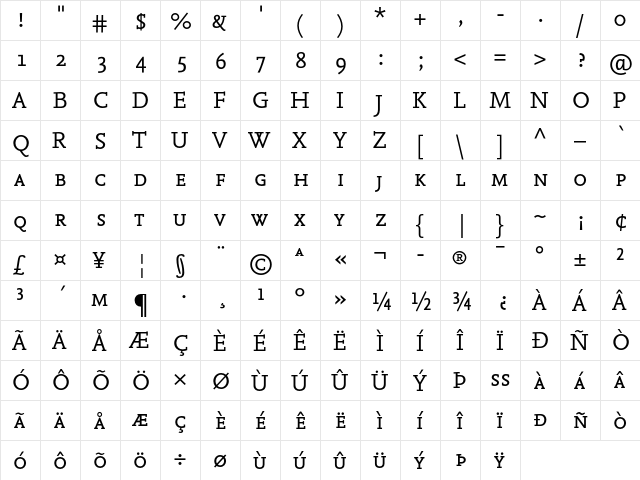
NexusMix-RegularSC Regular
Design Context for NexusMix-RegularSC Typeface
NexusMix-RegularSC offers clean, dependable letterforms without strong stylistic allegiance, making it a practical choice for designers who need flexibility.